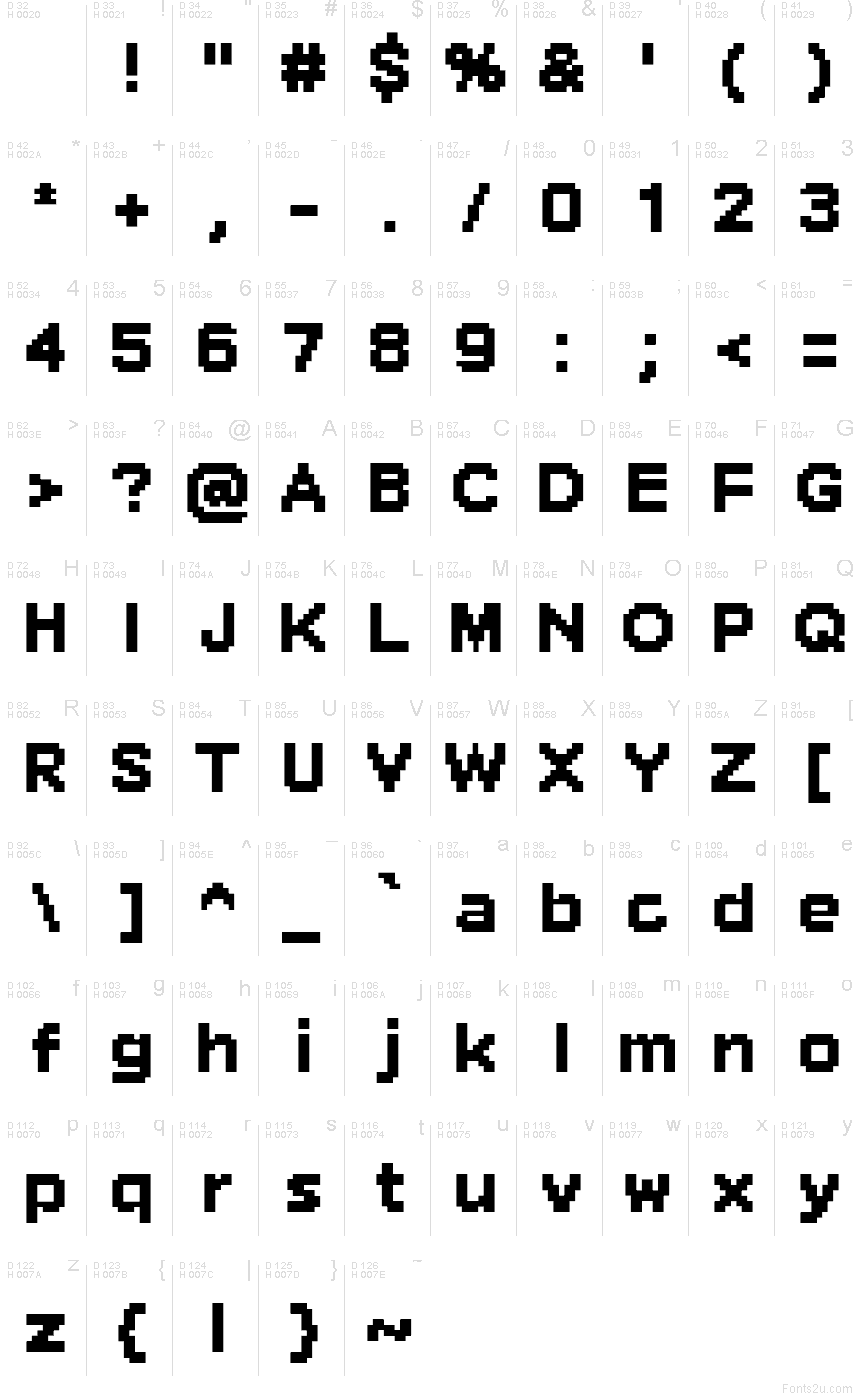
Ari-W9500 Display font by Catterio Sylt is a free bitmap pixel font in the Ari-W9500 family, built from chunky, tightly stepped blocks that feel straight out of an early console boot screen. The tall, squared letters stack up like digital skyscrapers, with sharp corners and hard edges that give every word a bold, mechanical punch.
Using Ari-W9500 Display, titles and logos for retro games, synthwave album covers, glitchy posters, tech YouTube overlays, pixel art stickers, and browser-based experiments all snap into a strong, 8-bit rhythm. This free font shines at large sizes where its grid shows clearly; pair it with a clean monospaced sans for body text to keep the overall layout crisp and readable.
Ari-W9500 Display was built with FontStruct Designer description: <p>The extra-bold/black weight of <strong>Ari-W9500</strong>.</p> Ari-W9500 Bold, which is based on Ari-W9500